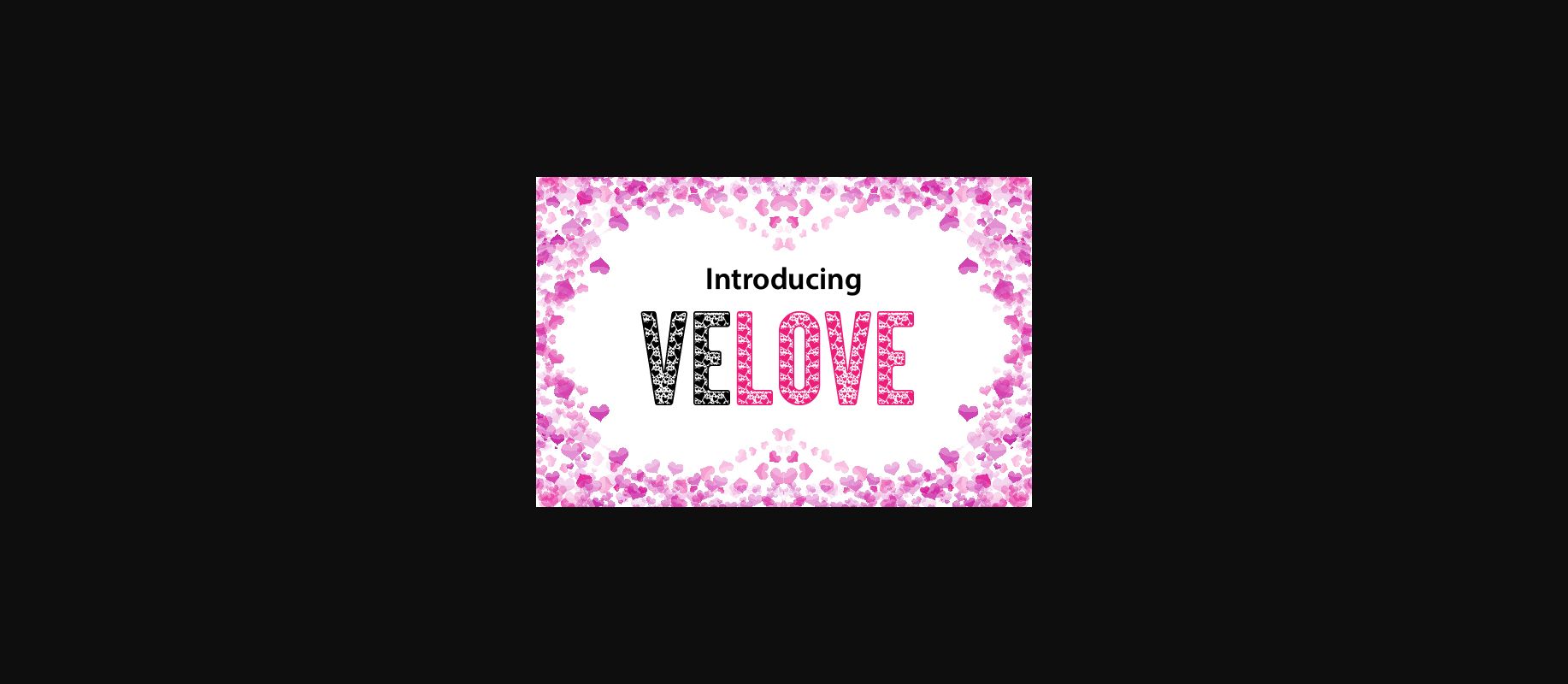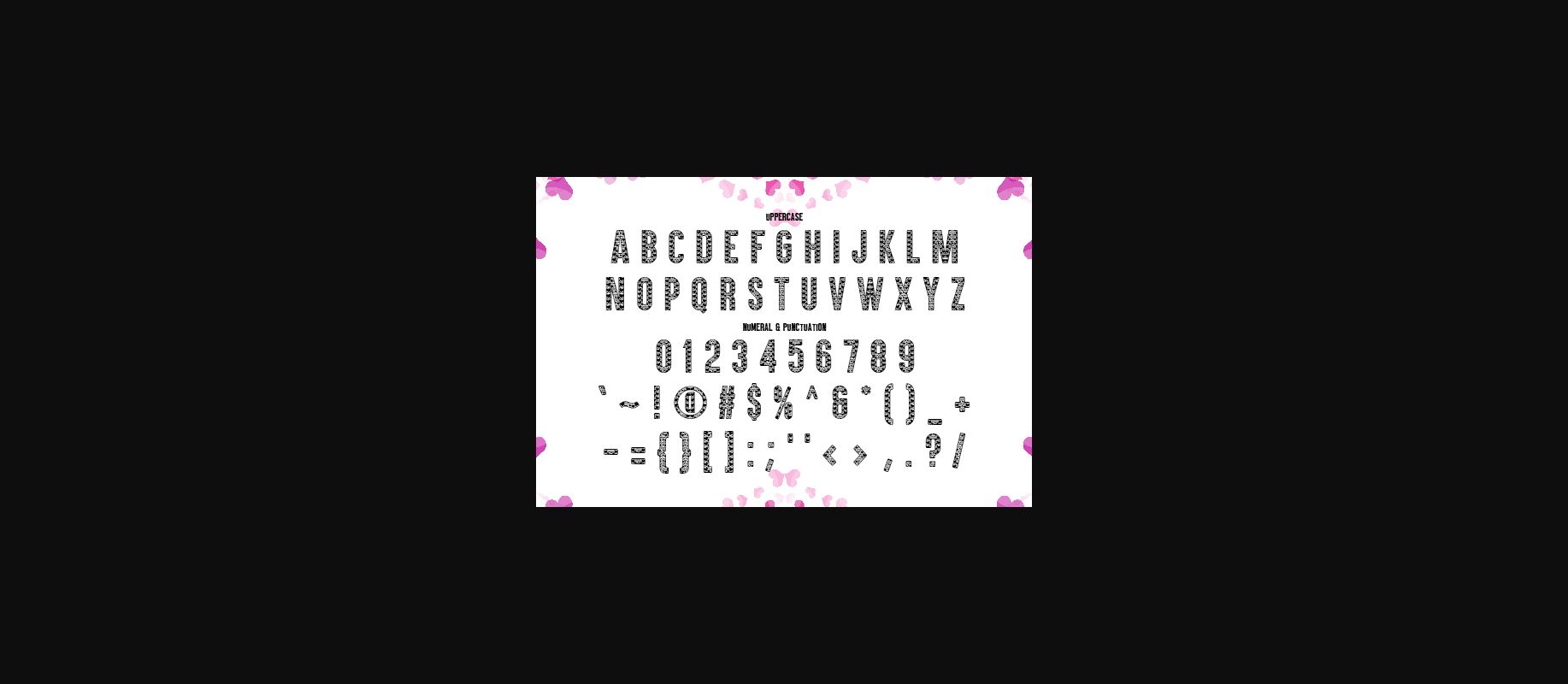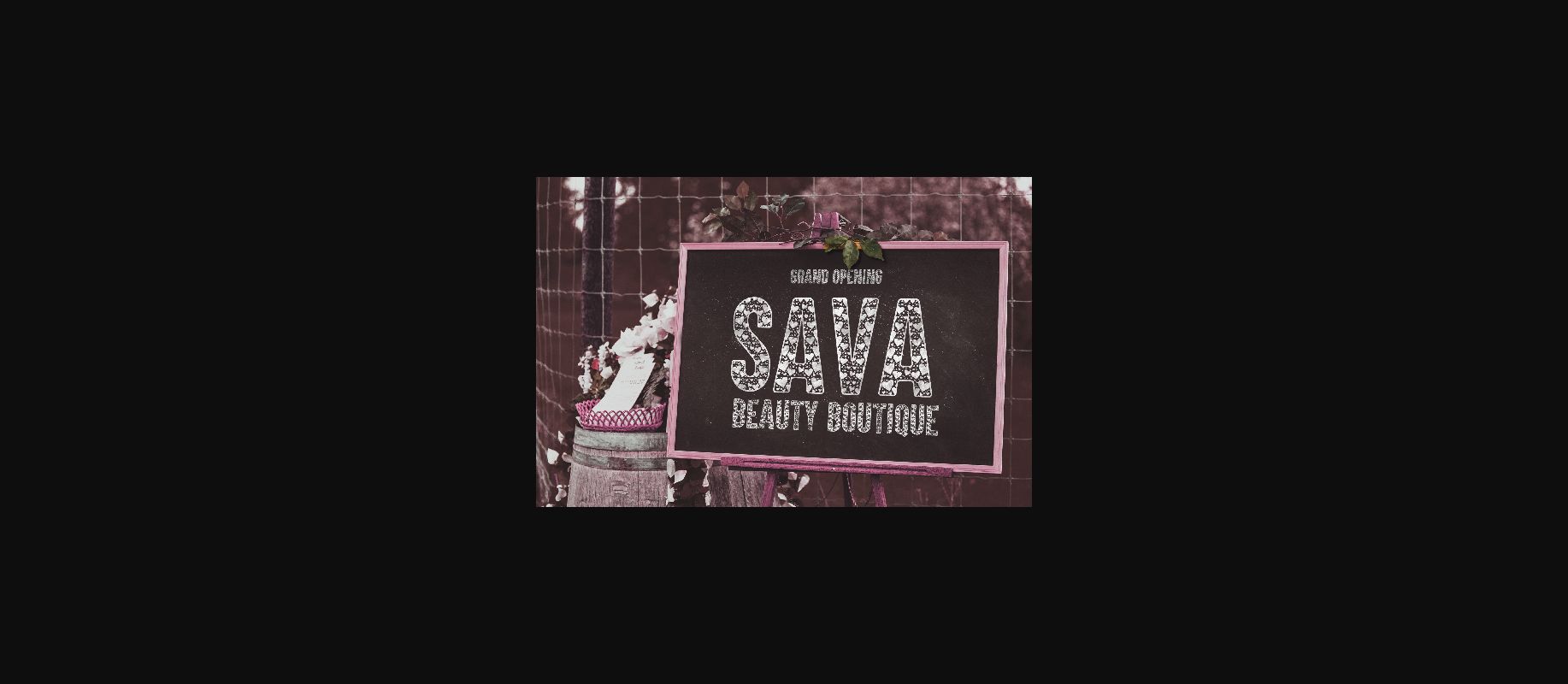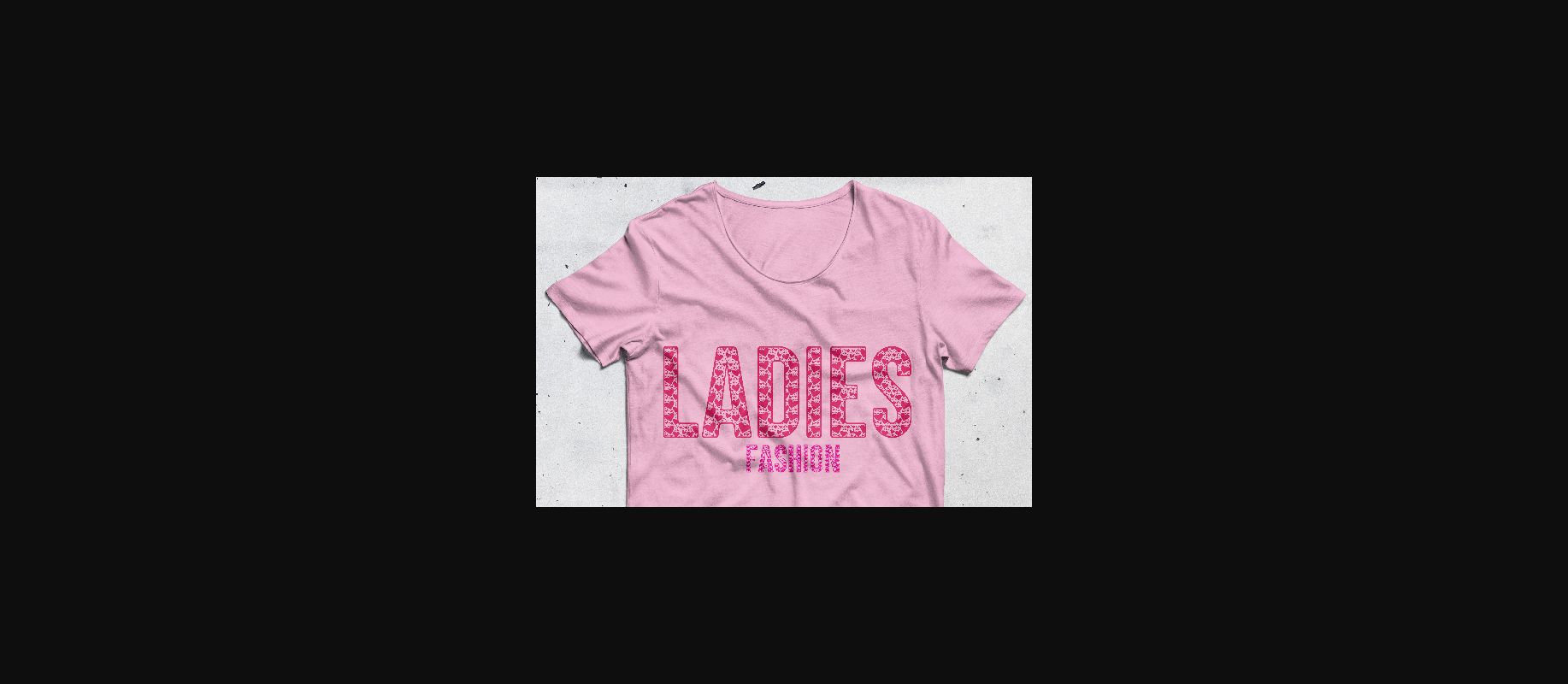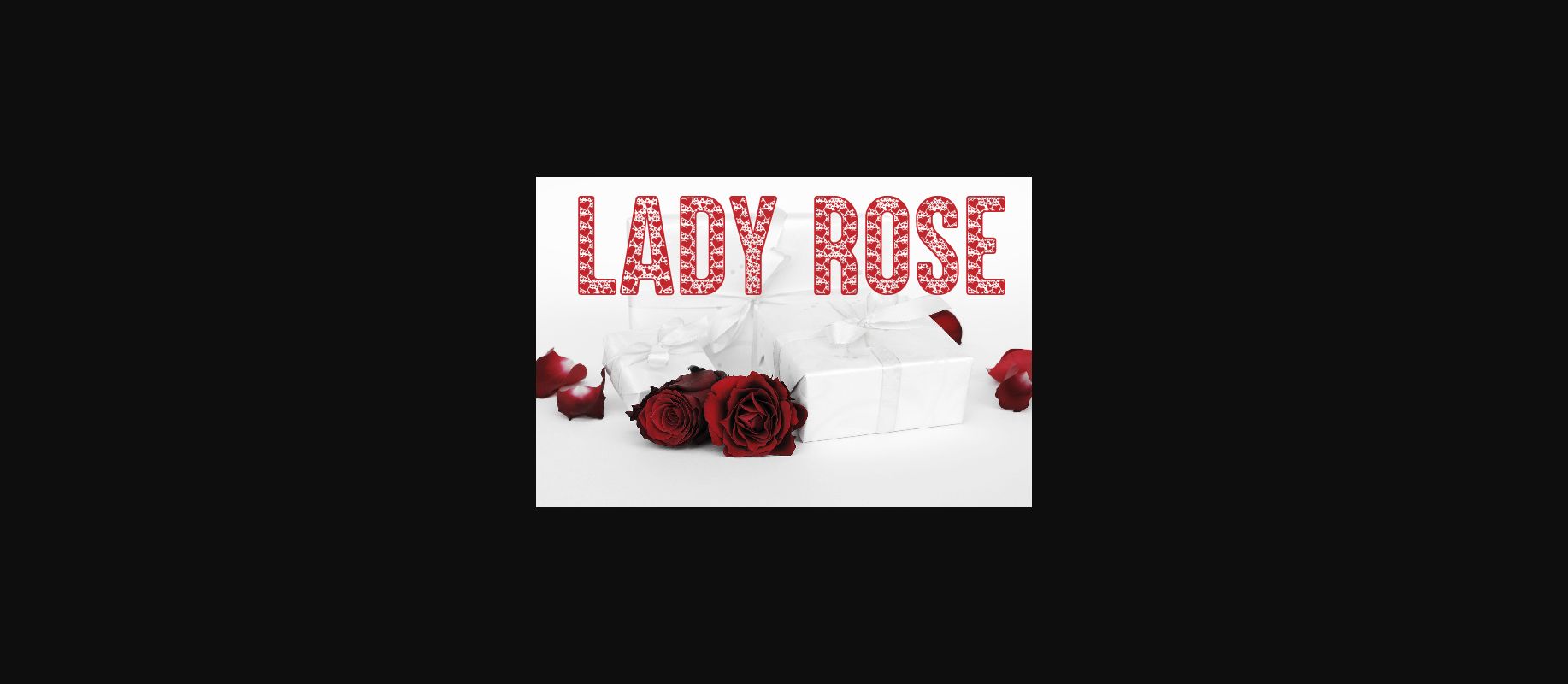
Velove Font
About Velove Font
The Velove is a new and fresh typeface with a simple, but very powerful heart theme.
It’s suitable for card, headlines, flyers, posters, billboards, magazines, t-shirts, and much more!